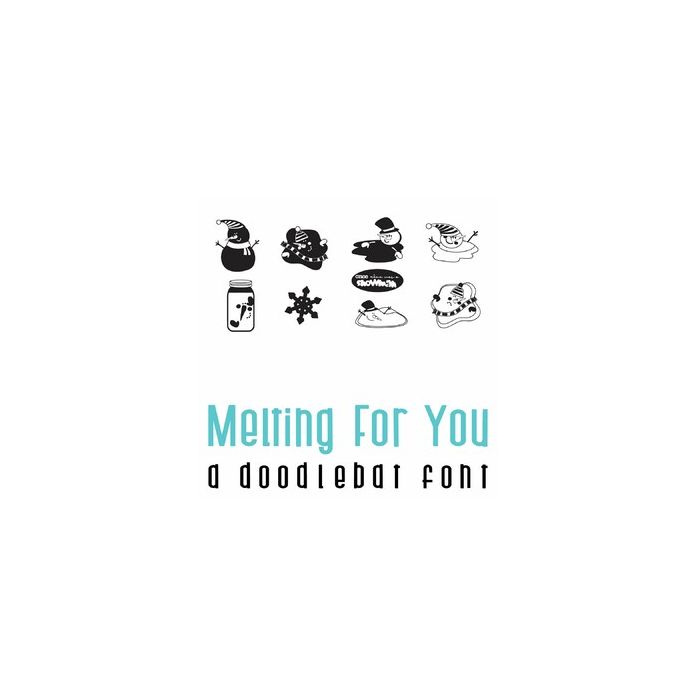
This fun doodlebat font features 36 adorable melted snowmen and snowmen imagery. Perfect for cards, gifts, decor, crafts, scrap book pages, planner stickers and more! A-V is imagery, W-Z and 0-9 is build your own snowman.